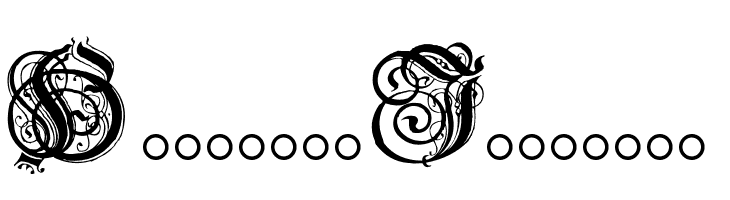
An ornate and intricate decorative font with elaborate swirls and flourishes.
A bold, ornate blackletter font with a medieval aesthetic.
A bold, dynamic font with angular edges and a dramatic slant.
An ornate and decorative blackletter-style font with intricate flourishes.
A whimsical collection of floral and celestial dingbats with intricate designs.
An ornate and decorative blackletter-style font with intricate flourishes.
An ornate Blackletter font with intricate, medieval-style letterforms.